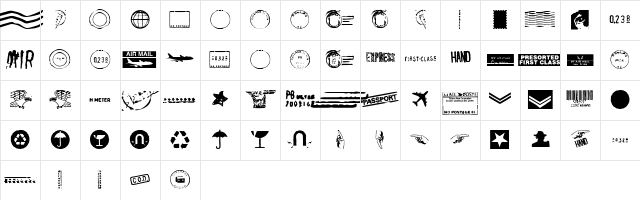
Complete AirMail Regular glyph index. Displaying only characters natively supported by AirMail Regular font.
AirMail is a composed and adaptable typeface that performs quietly and consistently across a wide range of design contexts.
Who designed the AirMail Regular font?
This font was published by Postage Lunchbox Design-Designed By Adam Roe, Part of the Air Mail Family, NOT TO BE USED AS REAL POSTAGE,. Check the technical specs section for copyright and designer details.